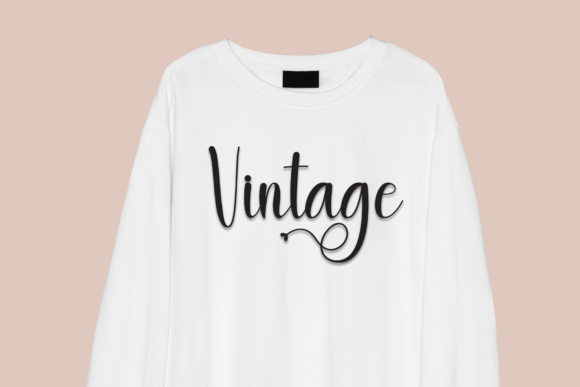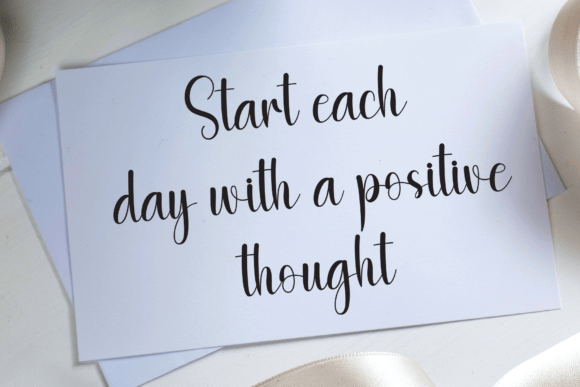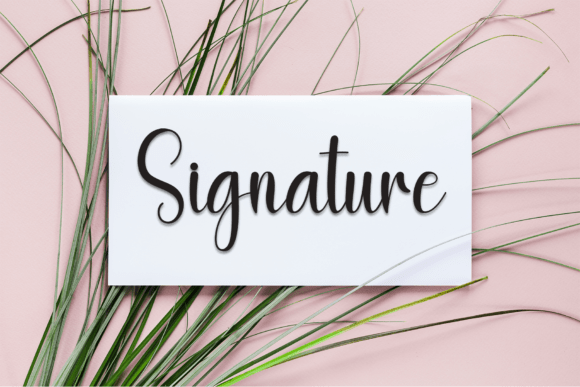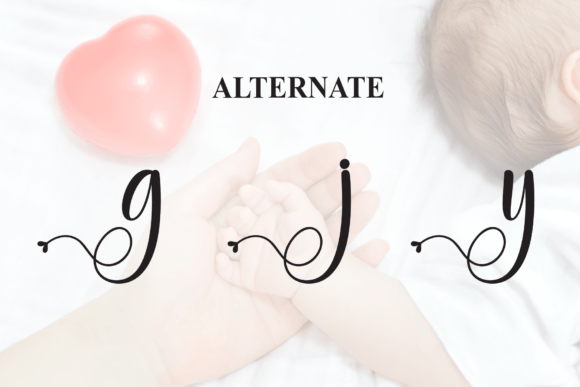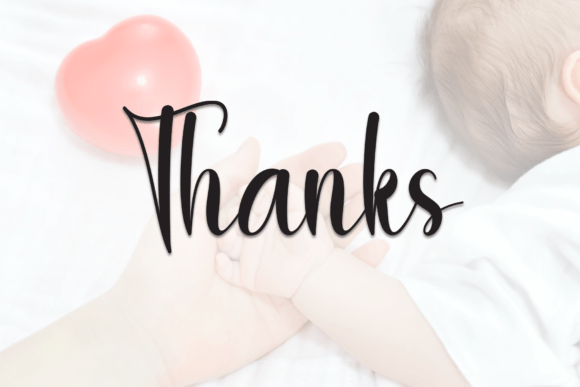
Babylove Font: The Perfect Handwritten Script for Romantic and Emotional Designs
In the world of typography, few fonts capture the essence of warmth and affection as beautifully as Babylove. This modern handwritten script font is a masterful blend of elegant curves and a warm, inviting tone, making it an ideal choice for designers and crafters looking to infuse their projects with a personal touch. Whether you’re creating wedding invitations, greeting cards, nursery decor, or heartfelt branding, Babylove is the perfect companion for your creative journey.
The Characteristics of Babylove Font
Babylove is more than just a font; it’s an expression of emotion. Its smooth, flowing strokes and subtle stylistic alternates give it a soft, natural rhythm that feels both organic and sophisticated. The font features a comprehensive set of uppercase and lowercase characters, numerals, punctuation, and multilingual support, ensuring that it can adapt seamlessly to a variety of creative applications.
One of the standout features of Babylove is its refined formality combined with handwritten charm. This balance makes it both expressive and highly versatile, capable of conveying a range of emotions from the subtle to the profound. Whether you’re aiming for a luxurious feel or a more casual, friendly vibe, Babylove adjusts effortlessly to meet your design needs.
Practical Applications of Babylove Font
The versatility of Babylove makes it suitable for a wide array of projects. Here are some of the most popular applications:
- Wedding Invitations: Add a touch of elegance and romance to your wedding invitations. Babylove’s flowing script and warm tone set the perfect scene for your special day.
- Greeting Cards: Whether it’s a birthday, anniversary, or get-well card, Babylove brings a heartfelt touch that makes your messages even more meaningful.
- Nursery Decor: Create a soothing and beautiful environment for your little ones with custom nursery decor that features Babylove’s gentle and affectionate style.
- Social Media Quotes: Stand out on social media with elegant and emotive quotes that capture the essence of your message.
- Heartfelt Branding: For brands that want to convey warmth, care, and personality, Babylove is the perfect choice for logos, packaging, and marketing materials.
Technical Details and Accessibility
Babylove is not just beautiful; it’s also highly accessible. Thanks to PUA (Private Use Area) encoding, the entire character set of Babylove is easily accessible without the need for specialized design programs. This means you can use Babylove in a variety of applications, from Microsoft Word to Adobe Photoshop and Illustrator, making it incredibly convenient for a wide range of projects.
Moreover, the font’s extensive language support ensures that it can be used in numerous languages, making it a fantastic choice for global brands or projects with a multilingual audience.
Why Choose Babylove Font?
In a sea of fonts, Babylove stands out for its unique blend of elegance, warmth, and versatility. Here are a few reasons why designers and crafters are falling in love with Babylove:
- Unique Emotional Impact: Babylove isn’t just a font; it’s a way to convey emotion and connect with your audience on a deeper level.
- High Versatility: From formal to casual projects, Babylove adapts perfectly, making it a valuable addition to any designer’s toolkit.
- Ease of Use: With PUA encoding and wide compatibility, Babylove is easy to use for designers of all skill levels.
In conclusion, Babylove is more than just a font; it’s a design companion that brings warmth, elegance, and a personal touch to any project. Its beautiful handwritten script, combined with its versatility and accessibility, makes it an excellent choice for designers and crafters looking to create romantic and emotional designs. Whether you’re working on a wedding invitation, a nursery rhyme book, or a heartfelt brand campaign, Babylove is sure to make your project stand out with its grace and charm.